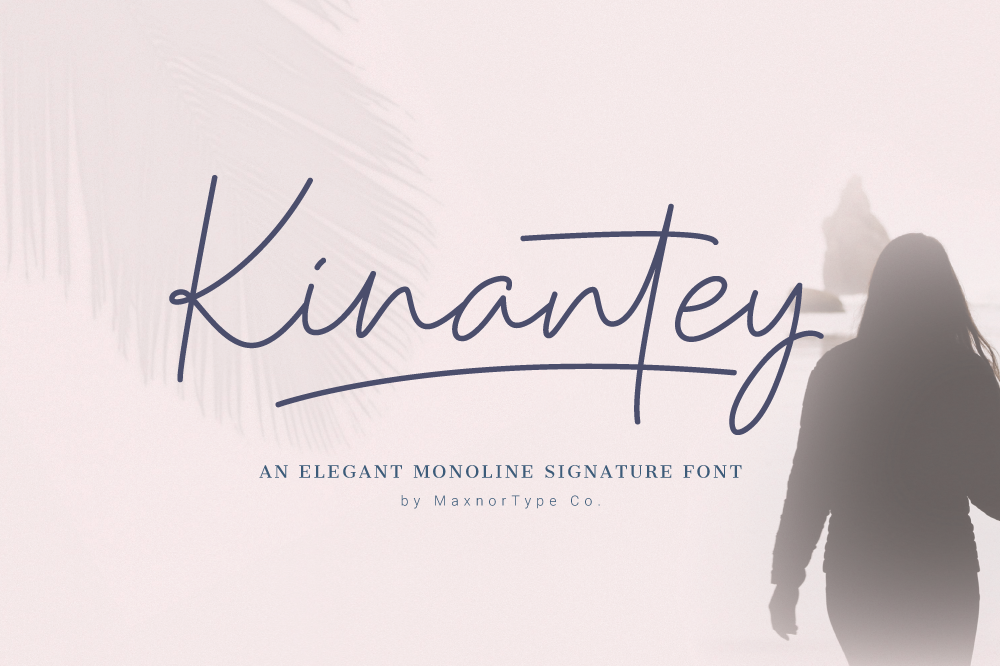
Kinantey - Monoline Signature Font
Kinantey-Regular
Hi! Let me introduce my new font: Kinantey. It is an elegant monoline signature  font with smooth lines and many alternates of swashes. It can be used for various purposes, such as signature, branding, watermark, greetings, logos, stationery, wedding invitations, etc.
Its features will make your art work look natural. These features let you save your time. Just type as you want, and let Kinantey do the rest. The features are: standard & discretionary ligatures, stylistic & contextual alternates, six style sets, many types of swashes, wings & connections with easy access. Besides that, Kinantey font has multilingual support, smooth lines, and also PUA encoded.